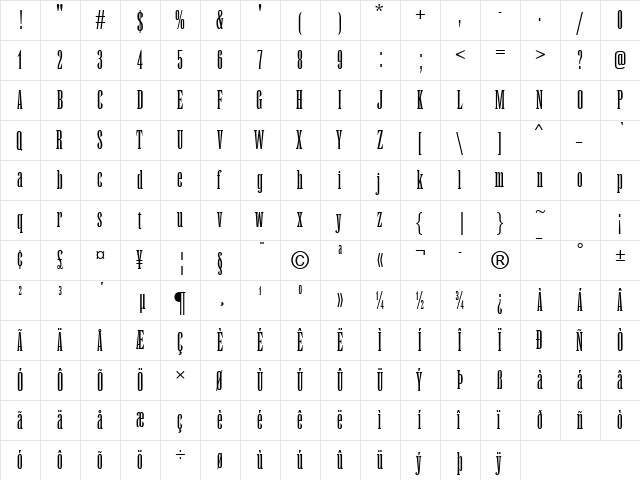
Runic MT Condensed Regular Font Preview
Runic MT Condensed Regular
Design Context for Runic MT Condensed Typeface
Runic MT Condensed takes a measured approach to typography — its balanced proportions and neutral character make it a reliable workhorse for both digital and print work. The condensed width makes it efficient for tight spaces without sacrificing legibility.